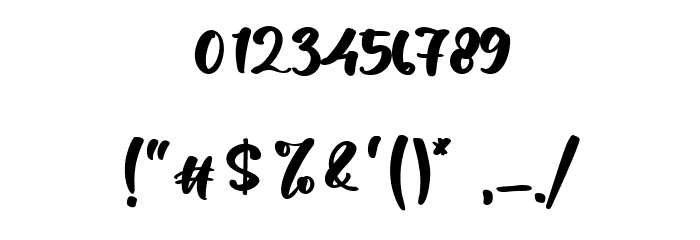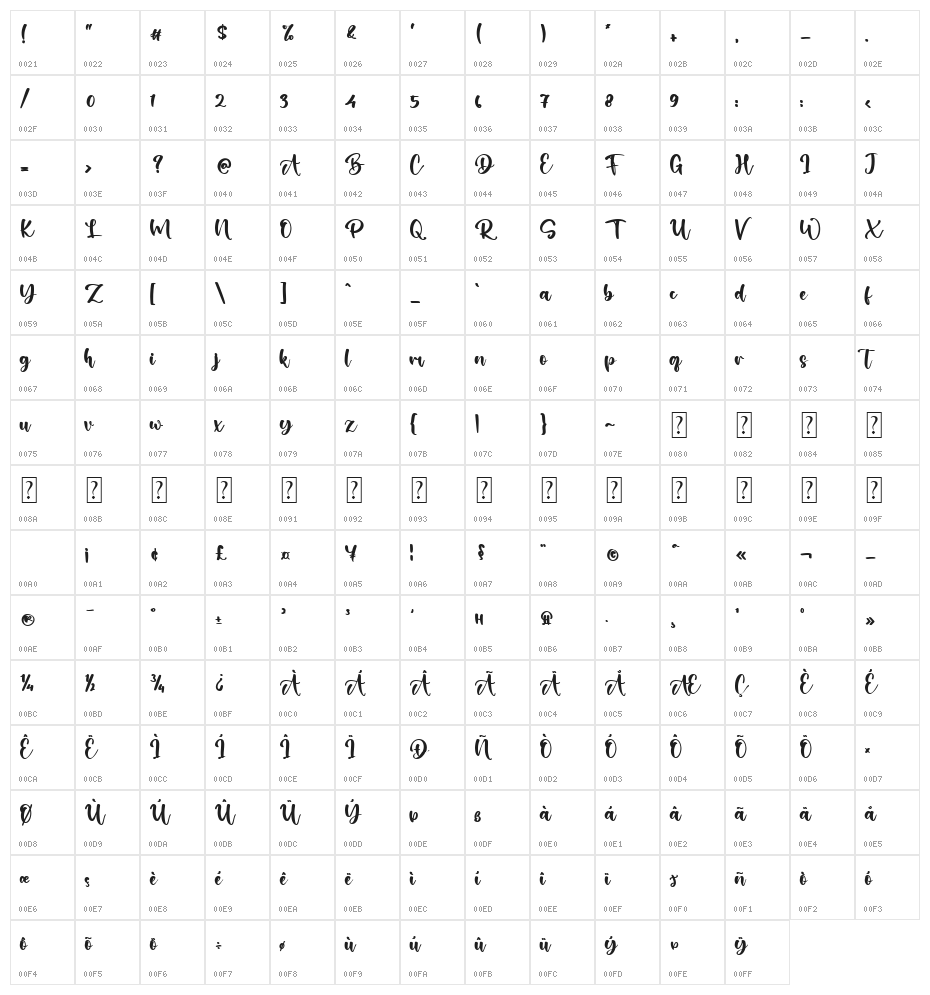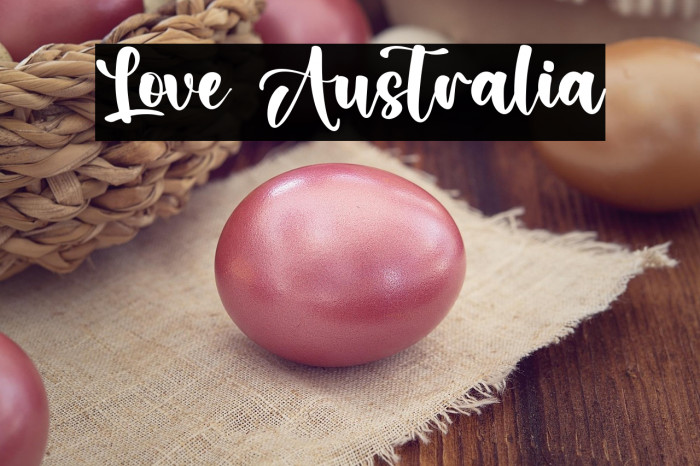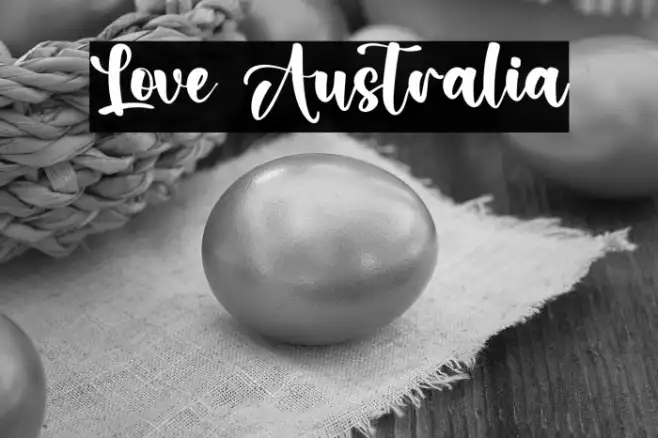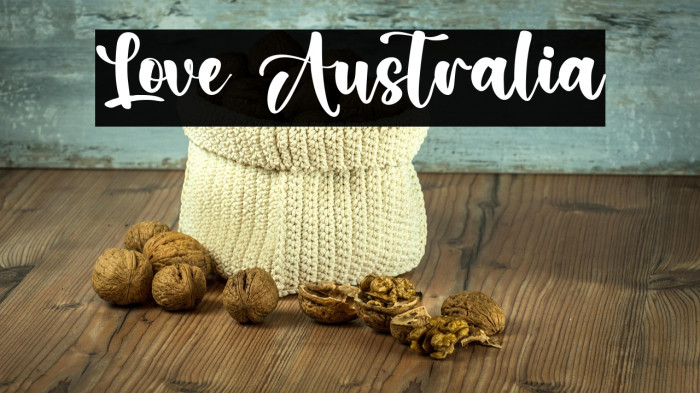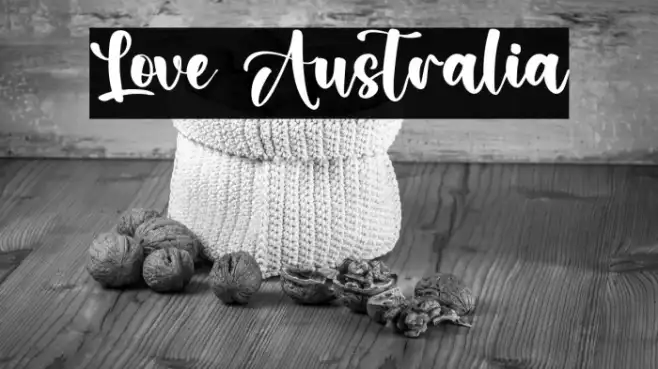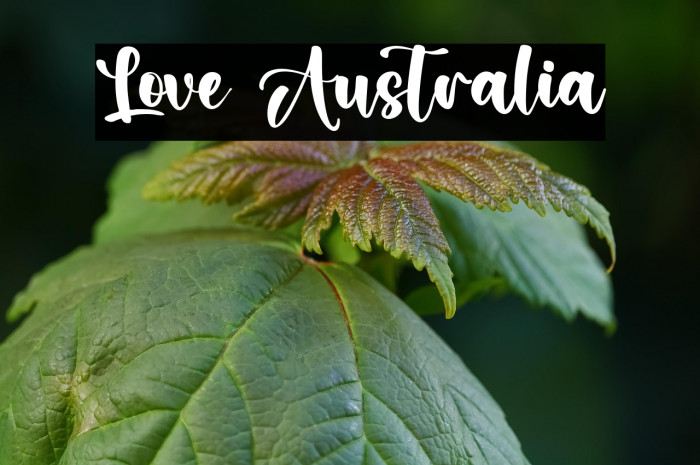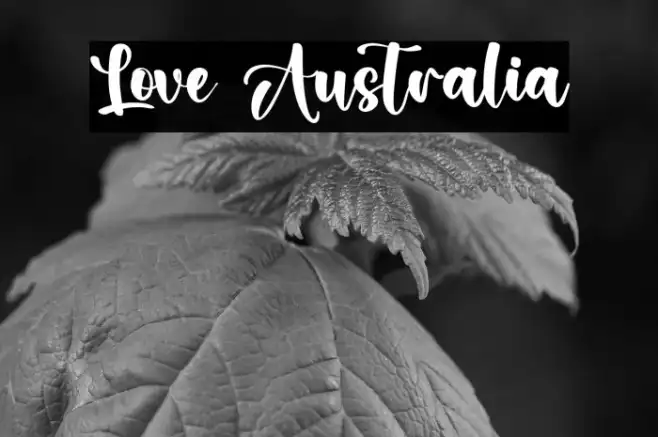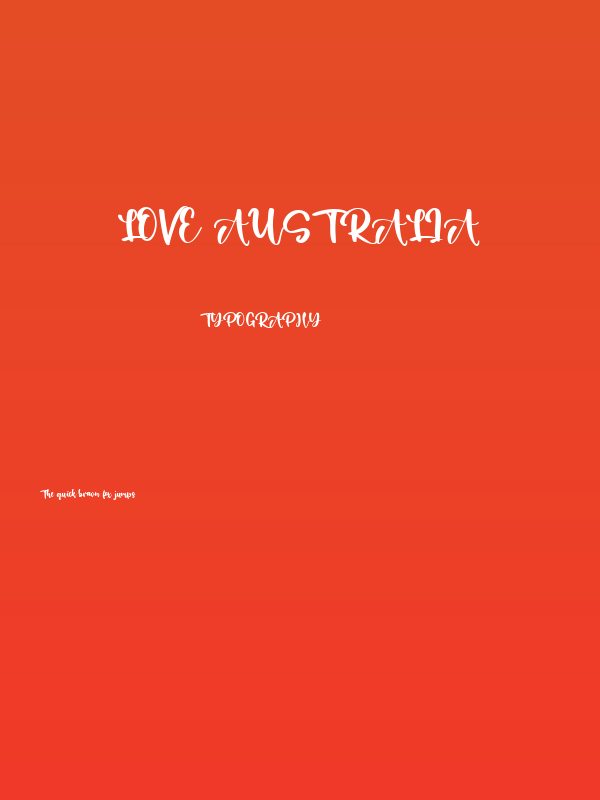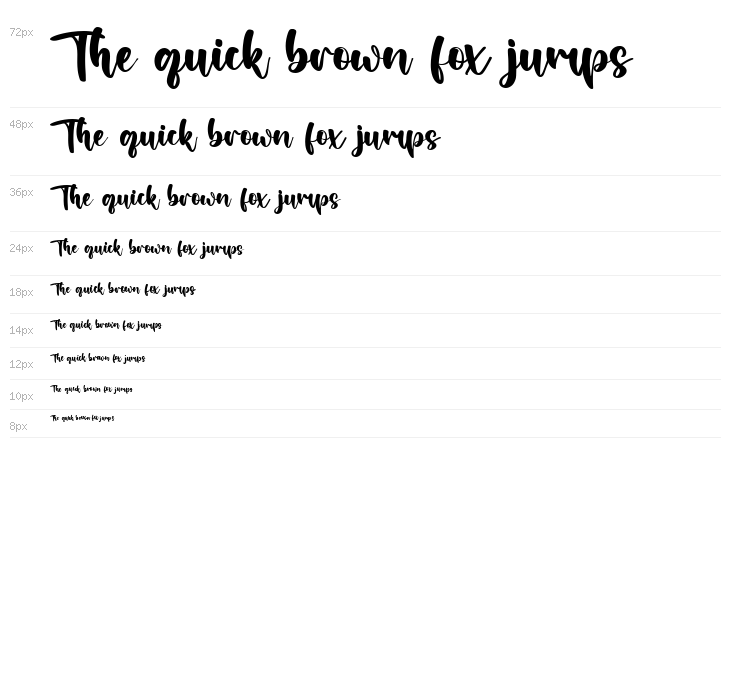
Love Australia Font
Love Australia Description
This font features a bold and flowing script style, characterized by its elegant and cursive letterforms. The uppercase letters are elaborate with sweeping curves and flourishes, while the lowercase letters maintain a consistent fluidity, adding a touch of sophistication. The numerals are bold and clear, complementing the overall aesthetic. Special characters are well-integrated, maintaining the decorative theme. The font's design is both artistic and legible, making it suitable for creative and expressive projects.